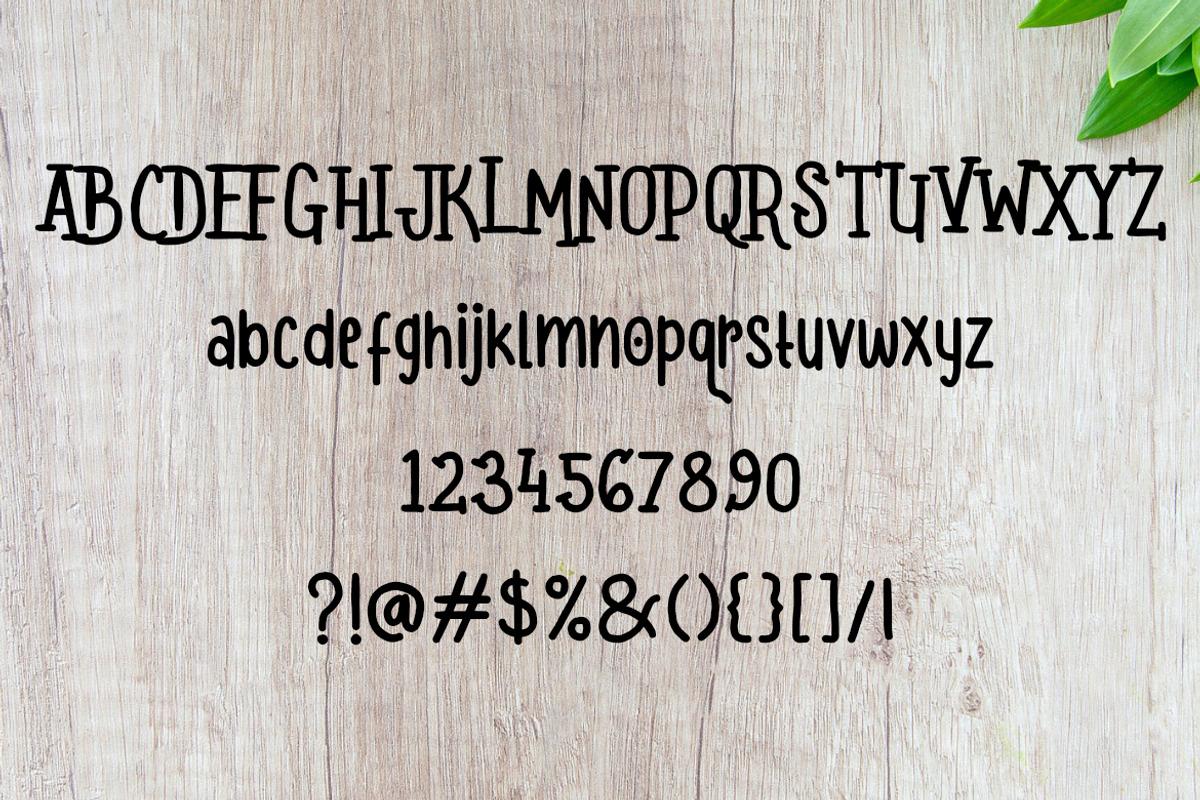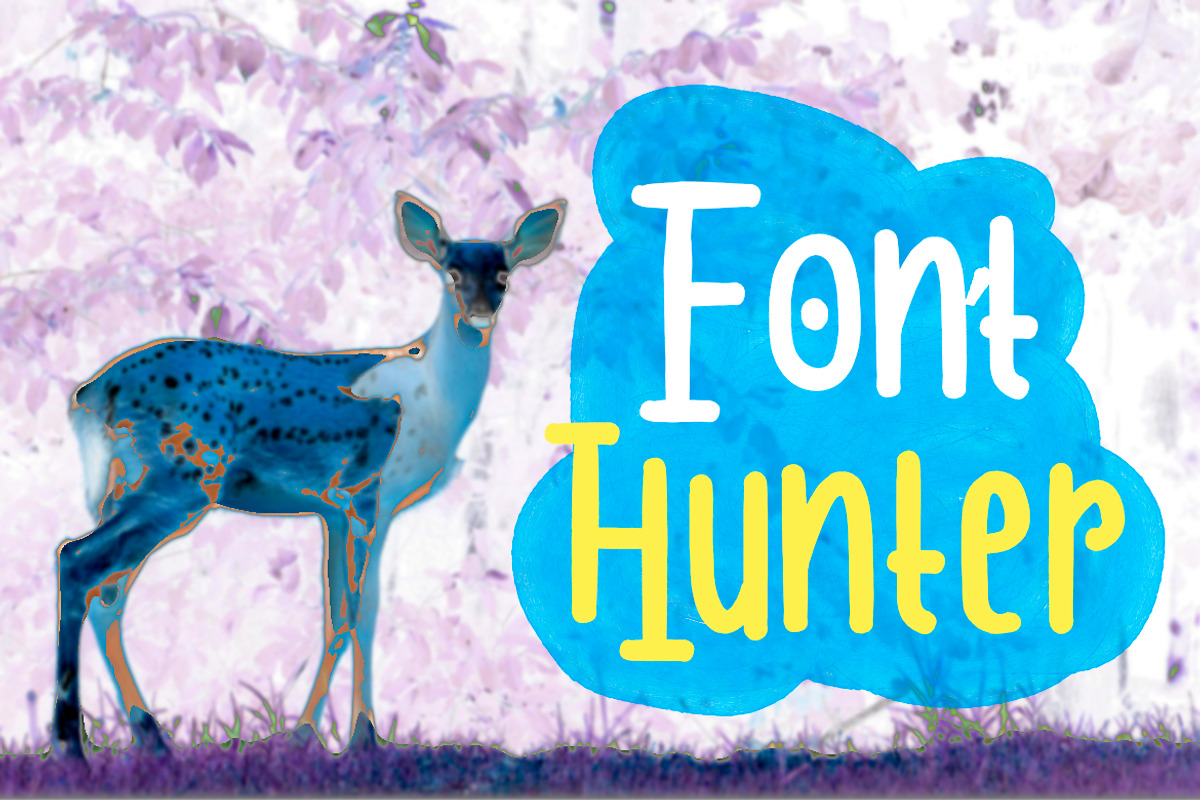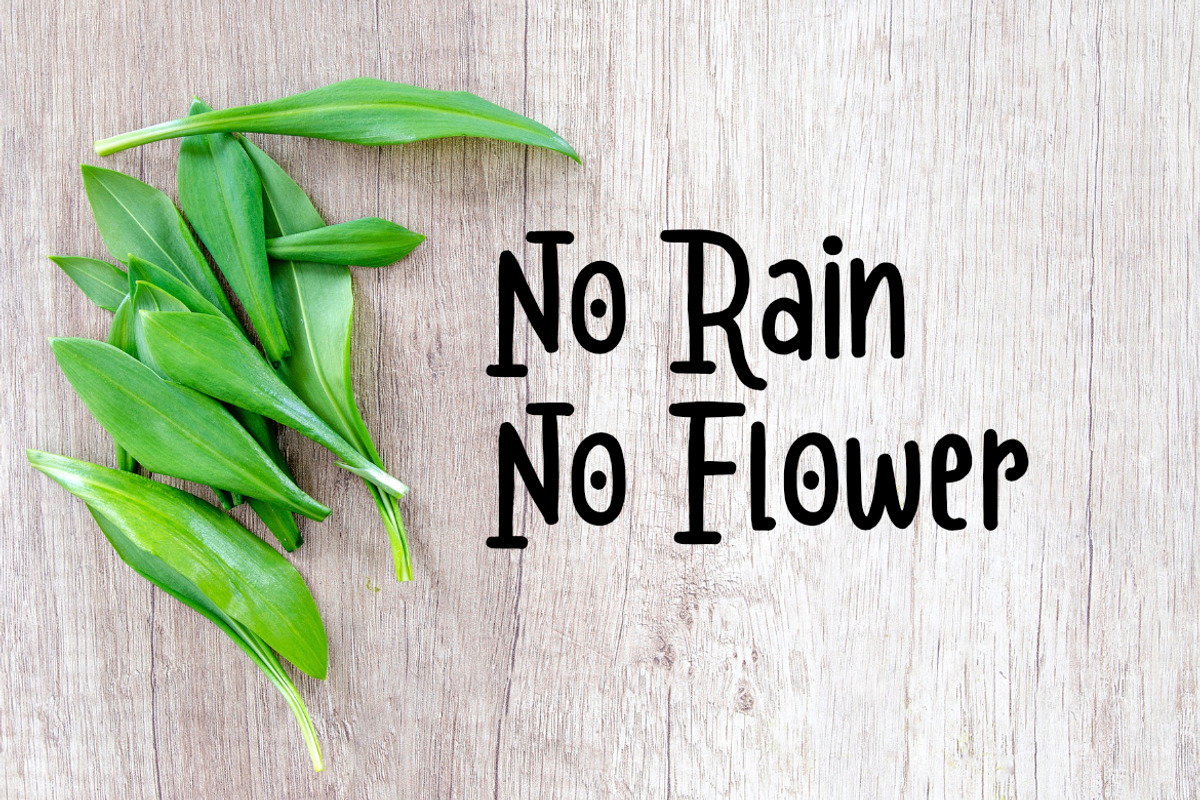
Font Hunter
Cute and cool font , suitable for many project , quotes, logo , doodle, heading title etc.
Font Hunter by ArdiDesigns fits naturally into Branding, posters, packaging, typography.